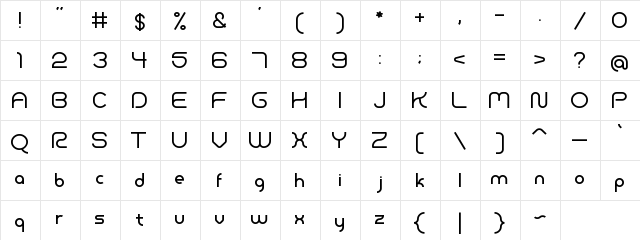
Adonay Regular
Design Context for Adonay Typeface
Adonay takes a measured approach to typography — its balanced proportions and neutral character make it a reliable workhorse for both digital and print work.